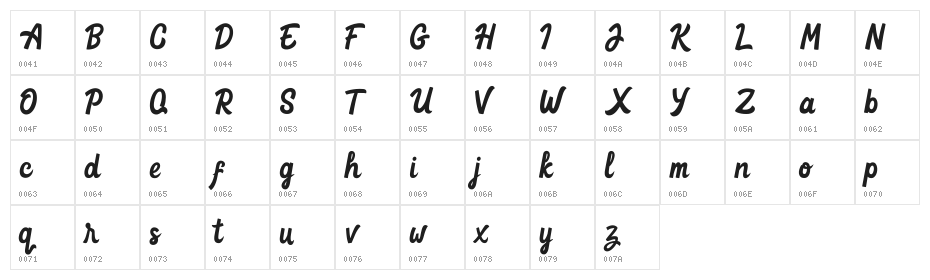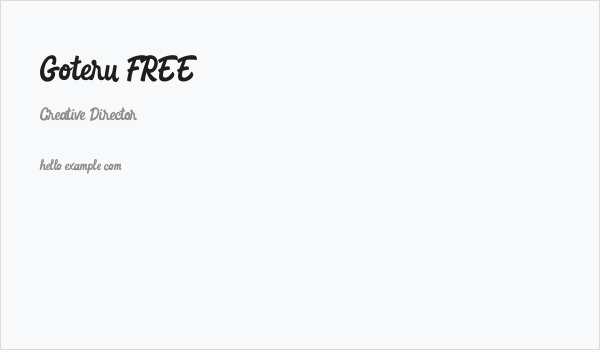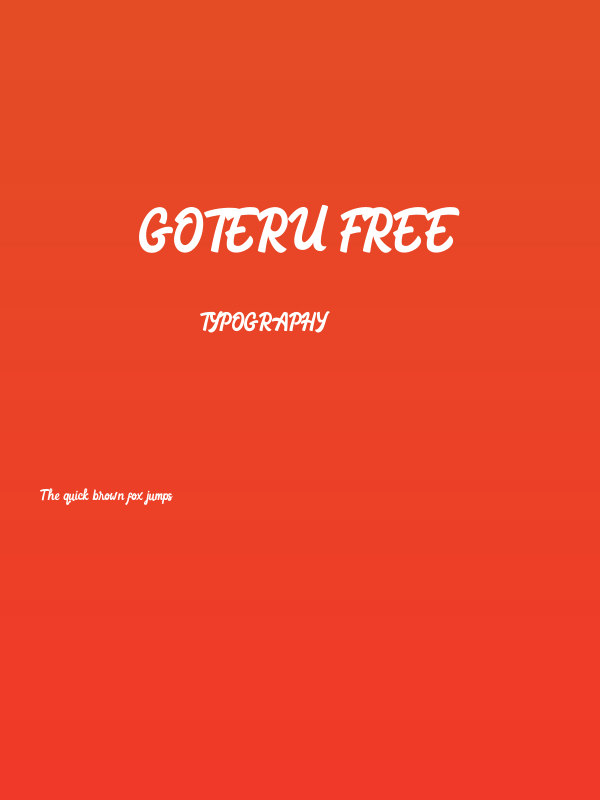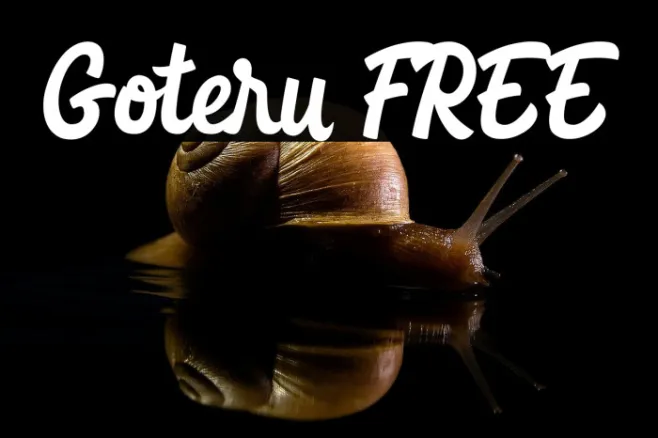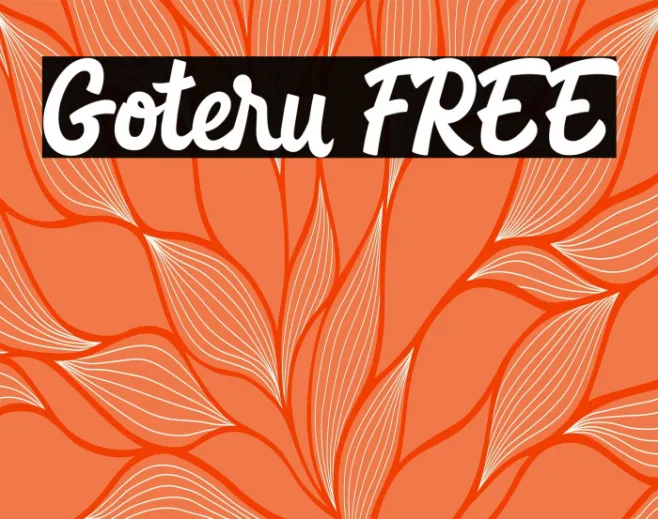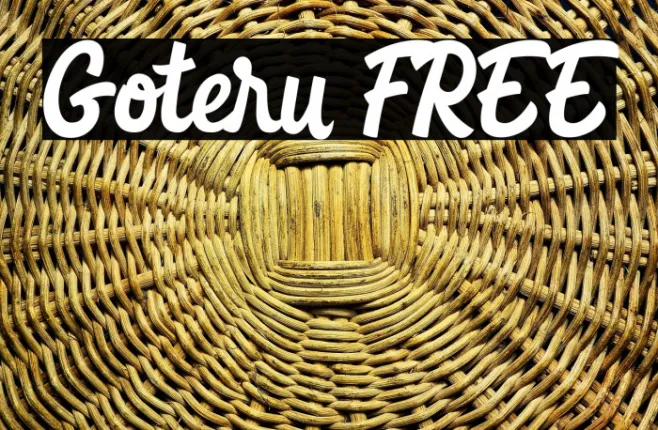
Goteru FREE Font
Goteru FREE Description
This font features a bold and dynamic script style with a playful and energetic appearance. The letters are connected, giving it a flowing and cohesive look, reminiscent of handwriting. The strokes are thick and consistent, providing a strong visual impact. The uppercase and lowercase letters maintain a uniform style, with slight variations in curvature and slant, adding to its charm. The font is well-suited for creative and informal designs, where a touch of personality is desired. Its boldness ensures readability, while the script nature adds a touch of elegance and flair.
| Proposed Projects | Ideal for branding, invitations, greeting cards, and creative projects where a personal touch is needed. |